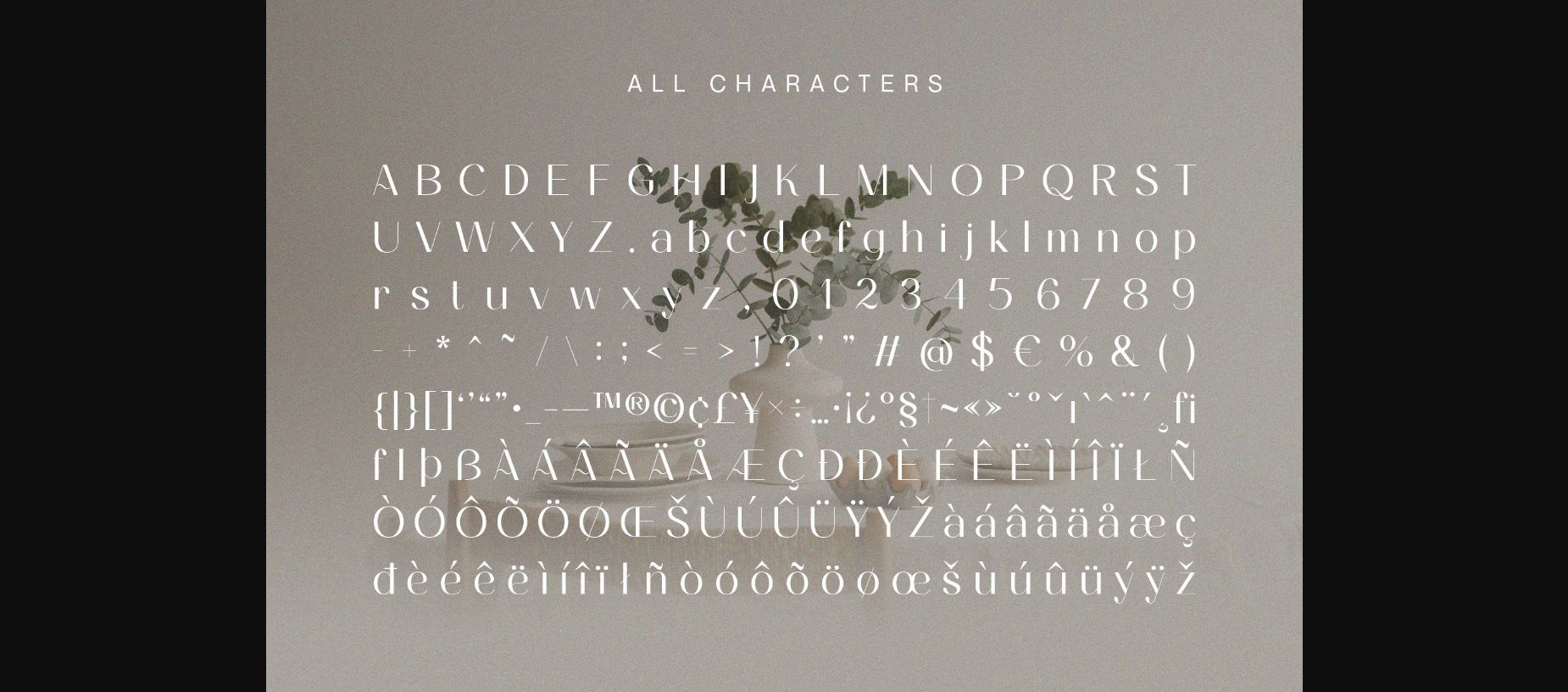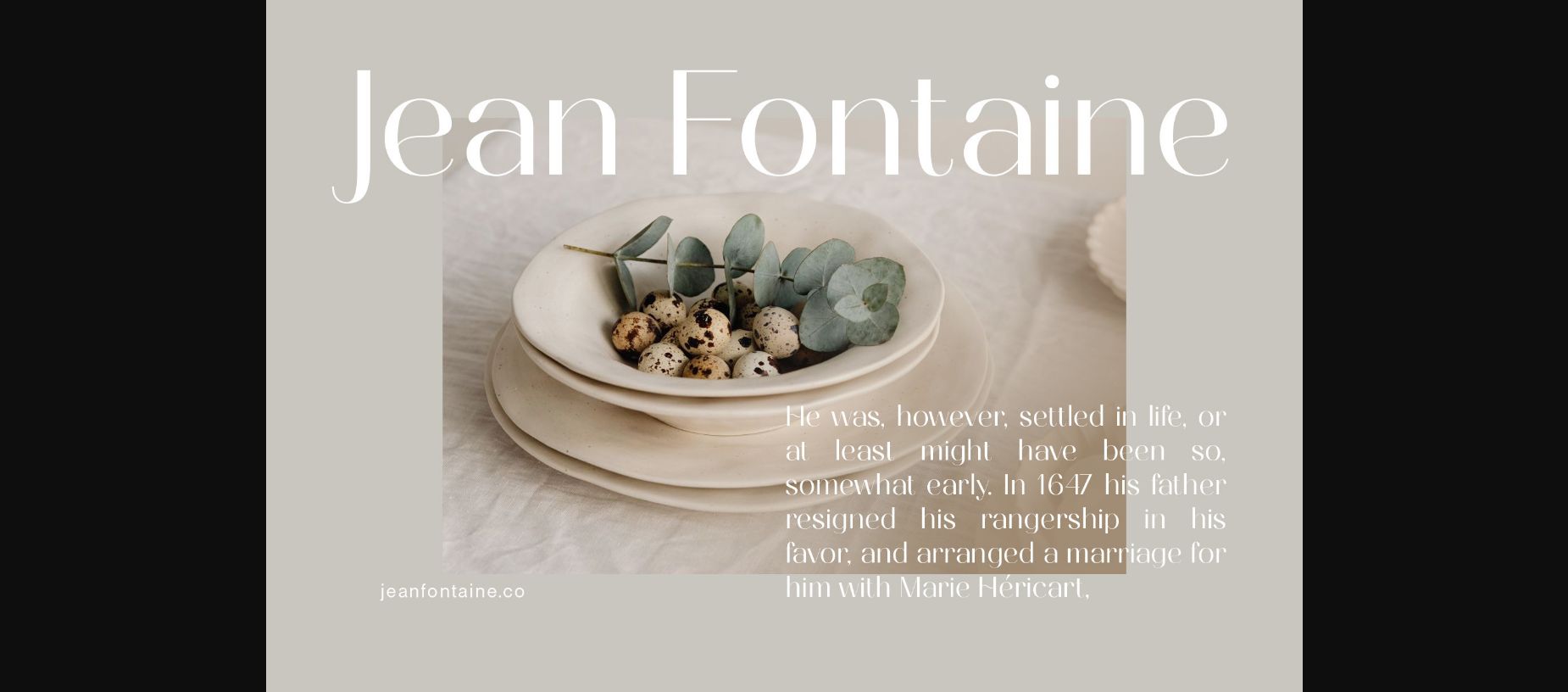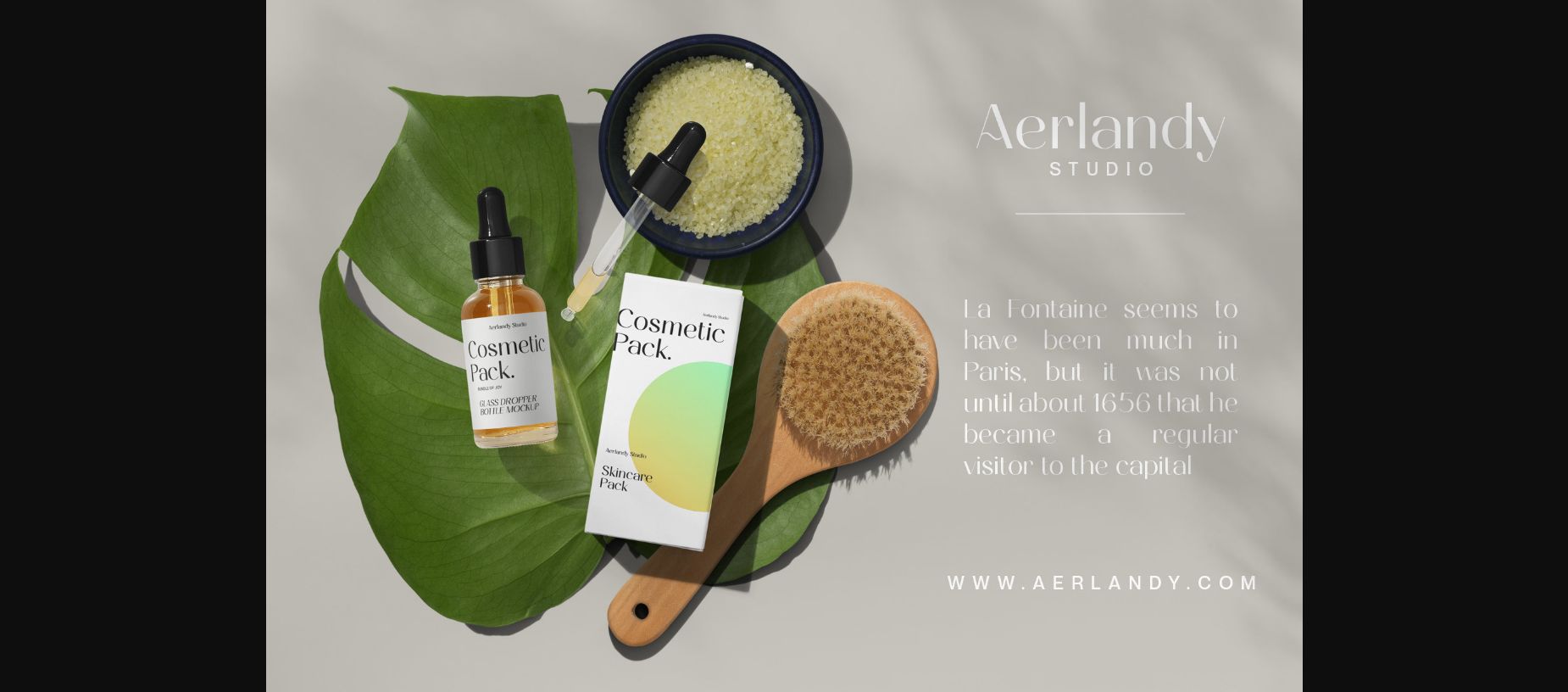
About Ameda Font
Introducing Ameda: A modern, stylish sans-serif font with high contrast that radiates sophistication. Elevate your designs with Ameda’s attention-grabbing style, infusing an exhilarating flair into your creative projects.
This typeface is ideal for greeting card, packaging, brand identity, poster, or any purpose to make your design project look eye catching and trendy. Feel free to play with this typeface!